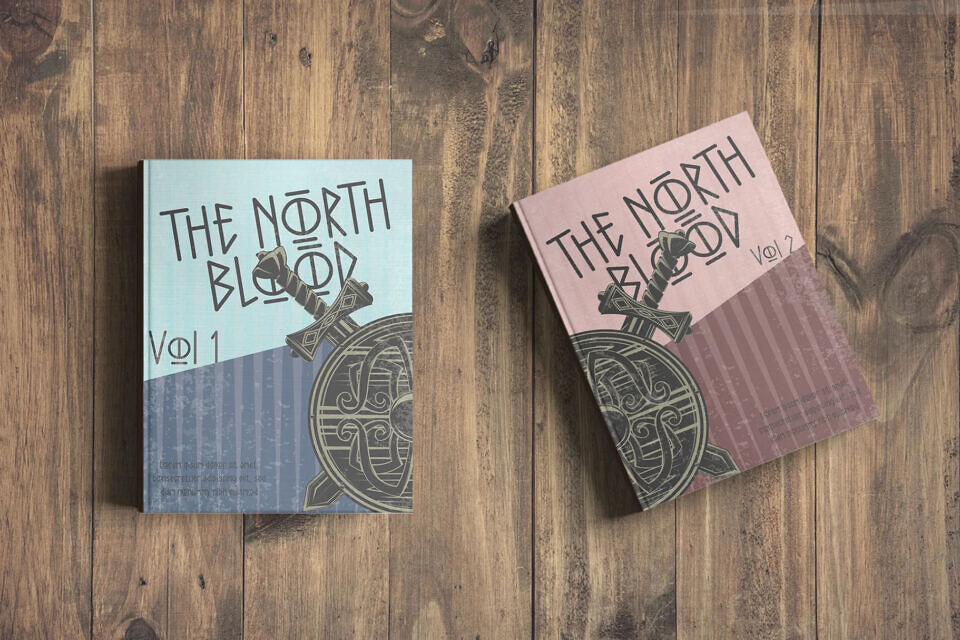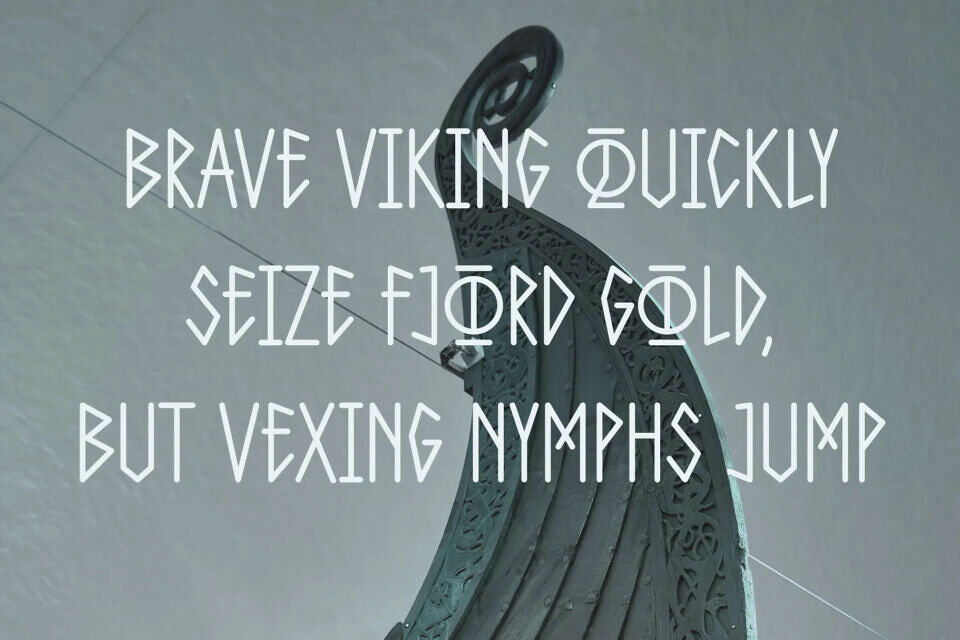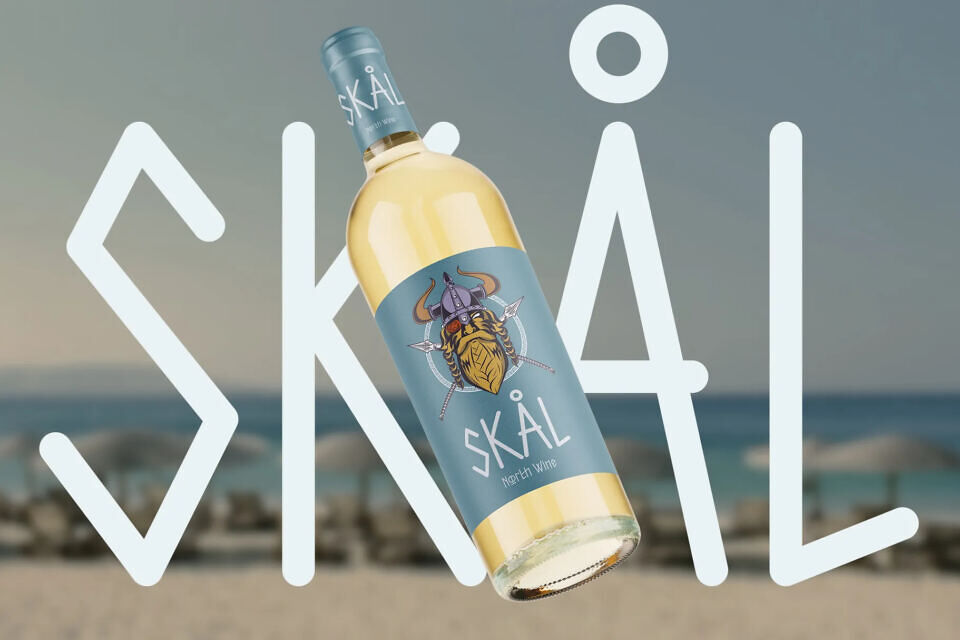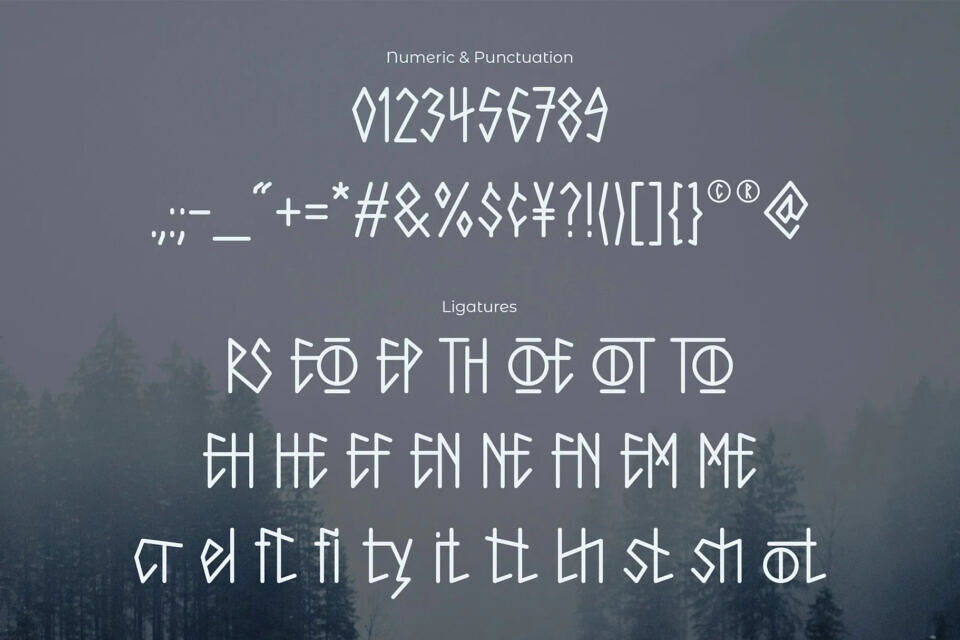
Nordvik Font
Nordvik is a minimalist display font inspired by ancient runes and Nordic symbolism. Built with sharp angles and monoline strokes create a mysterious form, and it has a subtle character balancing primal energy with modern simplicity.
Nordvik works best for logos, titles, posters, game interfaces, fantasy branding, album covers, and editorial headlines that need a distinctive and mythical voice. Its understated weight and consistent structure make it ideal for dark, atmospheric designs, nature inspired concepts, and modern folklore aesthetics. Perfect for projects that seek a sense of mystery, strength, and timeless identity.